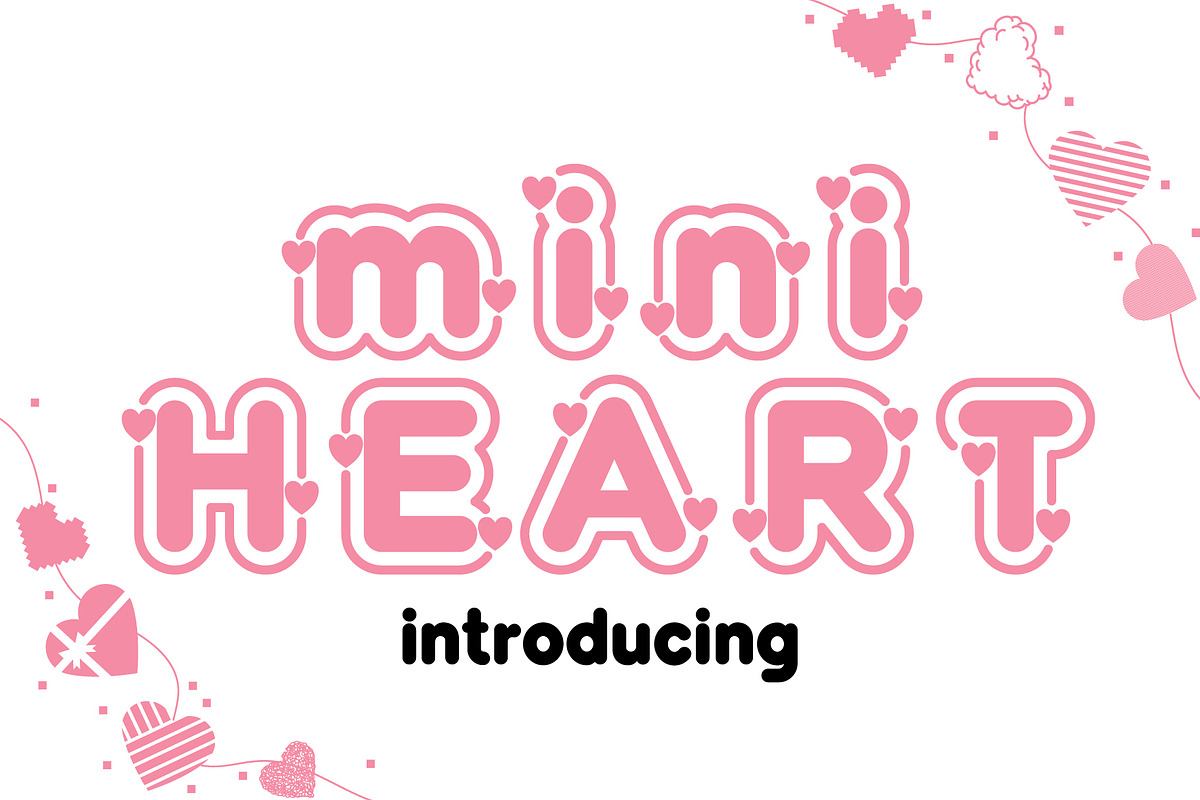
Mini Heart Decorative Fonts Free Download is a cute, playful typeface designed to bring a touch of love and charm to your designs. With small heart-shaped embellishments and delicate curves, this font is perfect for creating invitations, greeting cards, love letters, social media posts, and anything that needs a sweet and decorative touch.
Its whimsical design and lighthearted style make it ideal for projects focused on romance, fun, and celebration. Whether you're designing for a wedding, a Valentine’s Day project, or a personal creative venture, Mini Heart Decorative Fonts adds a unique, heartwarming flair to your typography.